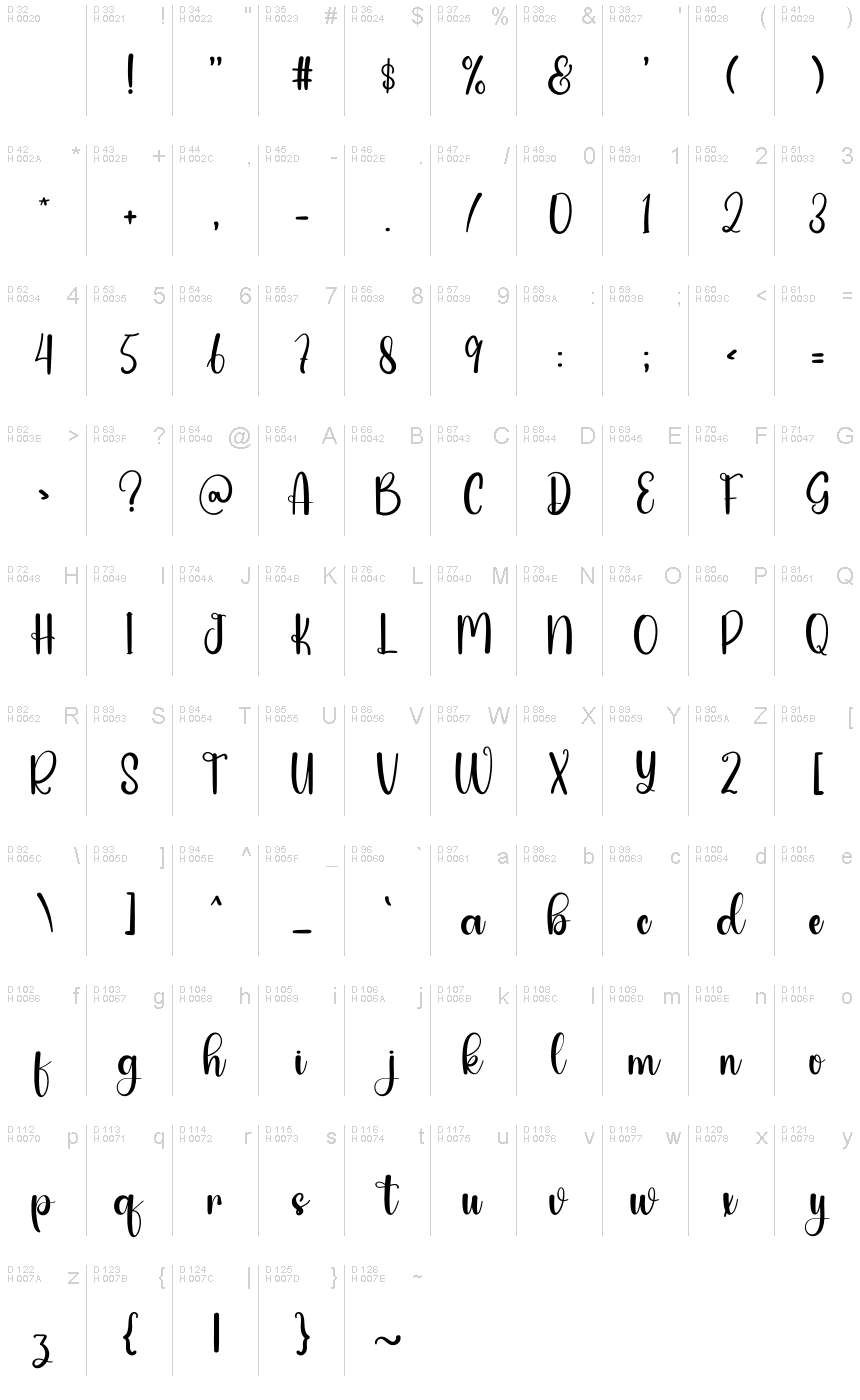
The Spooky
The Spooky font by PiPi Creative is a captivating handwritten typeface that exudes charm with its whimsical curves and fluid strokes. This free font's playful elegance makes it an ideal choice for designs requiring a touch of personality and informal flair.
With its distinctive style, The Spooky stands out in projects such as invitations, posters, and digital artwork where warmth and creativity are desired. Its bold presence ensures visibility while maintaining readability, perfect for headlines that captivate the imagination.